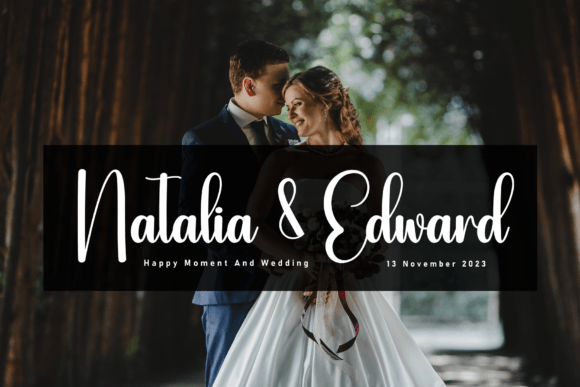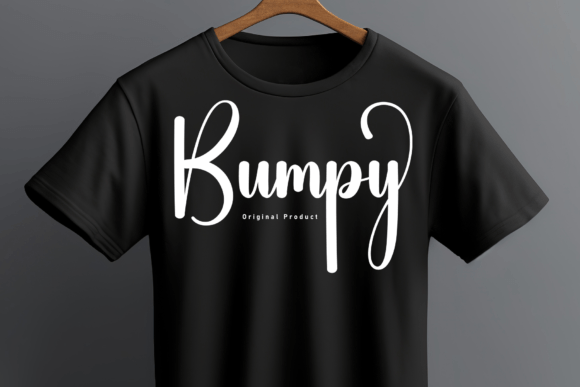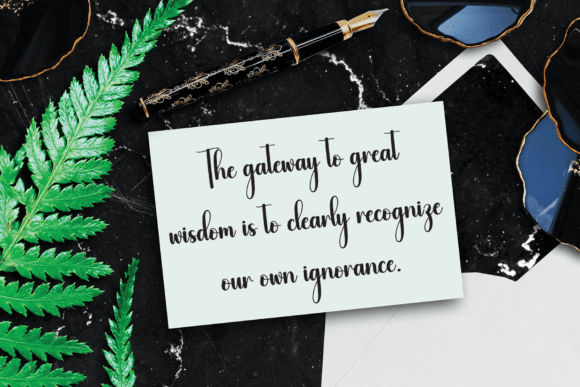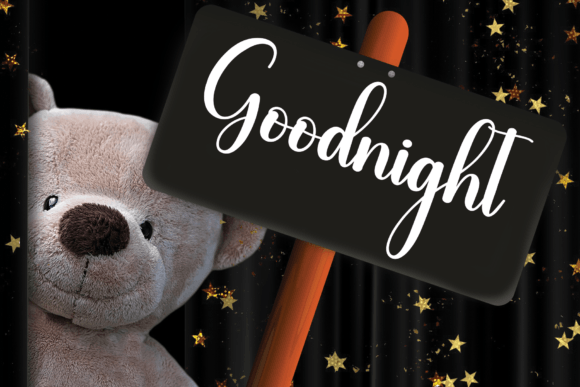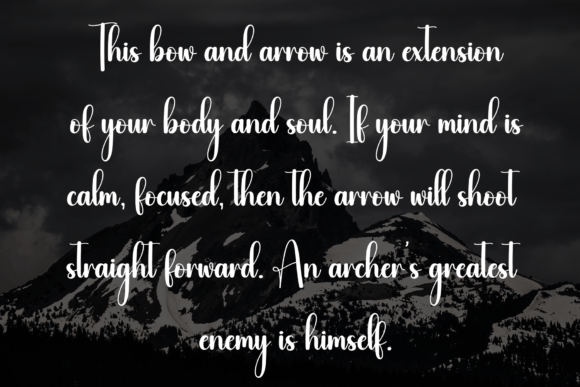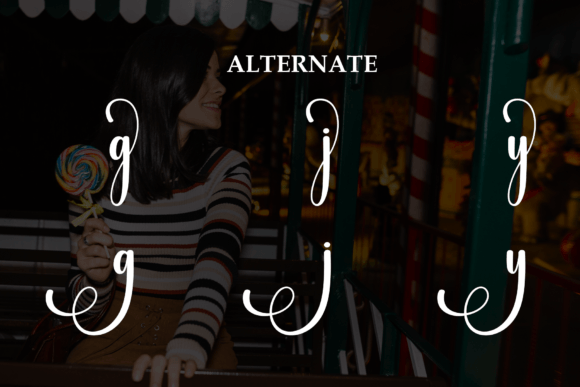
Groovy Spooky Font: Add a Sweet and Friendly Touch to Your Designs
Are you looking for a font that can add a playful and whimsical touch to your designs? Look no further than the Groovy Spooky Font! This sweet and friendly handwritten display font is perfect for creating eye-catching wedding invitations, cards, and other designs that require a fun and lively feel.
What is Groovy Spooky Font?
Groovy Spooky is a carefully crafted handwritten display font that exudes a sense of playfulness and friendliness. Its unique and quirky style makes it an ideal choice for designers and crafters who want to add a personal touch to their work. Whether you’re creating wedding invitations, greeting cards, or social media graphics, this font is sure to make your designs stand out.
Key Features of Groovy Spooky Font
- Cute and Fun: Groovy Spooky Font is designed to be playful and fun, making it perfect for designs that require a lighthearted touch.
- Handwritten Display Font: This font is a beautiful example of a handwritten display font, with each letter carefully crafted to create a unique and personal feel.
- Sweet and Friendly: The overall aesthetic of Groovy Spooky Font is sweet and friendly, making it ideal for designs that require a warm and approachable feel.
- Versatile: This font can be used for a wide range of design projects, from wedding invitations and cards to social media graphics and more.
Uses for Groovy Spooky Font
Groovy Spooky Font is a versatile font that can be used for a variety of design projects. Here are some ideas to get you started:
- Wedding Invitations: Add a playful and romantic touch to your wedding invitations with Groovy Spooky Font.
- Greeting Cards: Create fun and festive greeting cards for birthdays, holidays, and other special occasions.
- Social Media Graphics: Use Groovy Spooky Font to create eye-catching social media graphics that are sure to grab attention.
- Party Decorations: Create custom party decorations, such as banners and signs, with Groovy Spooky Font.
Why Choose Groovy Spooky Font?
There are many fonts to choose from, but Groovy Spooky Font stands out for its unique and playful style. Here are some reasons why you should consider choosing Groovy Spooky Font for your next design project:
- Unique Style: Groovy Spooky Font has a one-of-a-kind style that is sure to make your designs stand out.
- Easy to Read: Despite its playful style, Groovy Spooky Font is easy to read and understand.
- Customizable: You can customize Groovy Spooky Font to fit your design needs, from changing the color to adjusting the size.
Tips for Using Groovy Spooky Font
Here are some tips for using Groovy Spooky Font in your designs:
- Pair with Other Fonts: Pair Groovy Spooky Font with other fonts to create a unique and visually appealing design.
- Experiment with Colors: Try out different colors to see what works best with Groovy Spooky Font.
- Keep it Simple: Don’t overcomplicate your design – keep it simple and let Groovy Spooky Font be the star of the show.